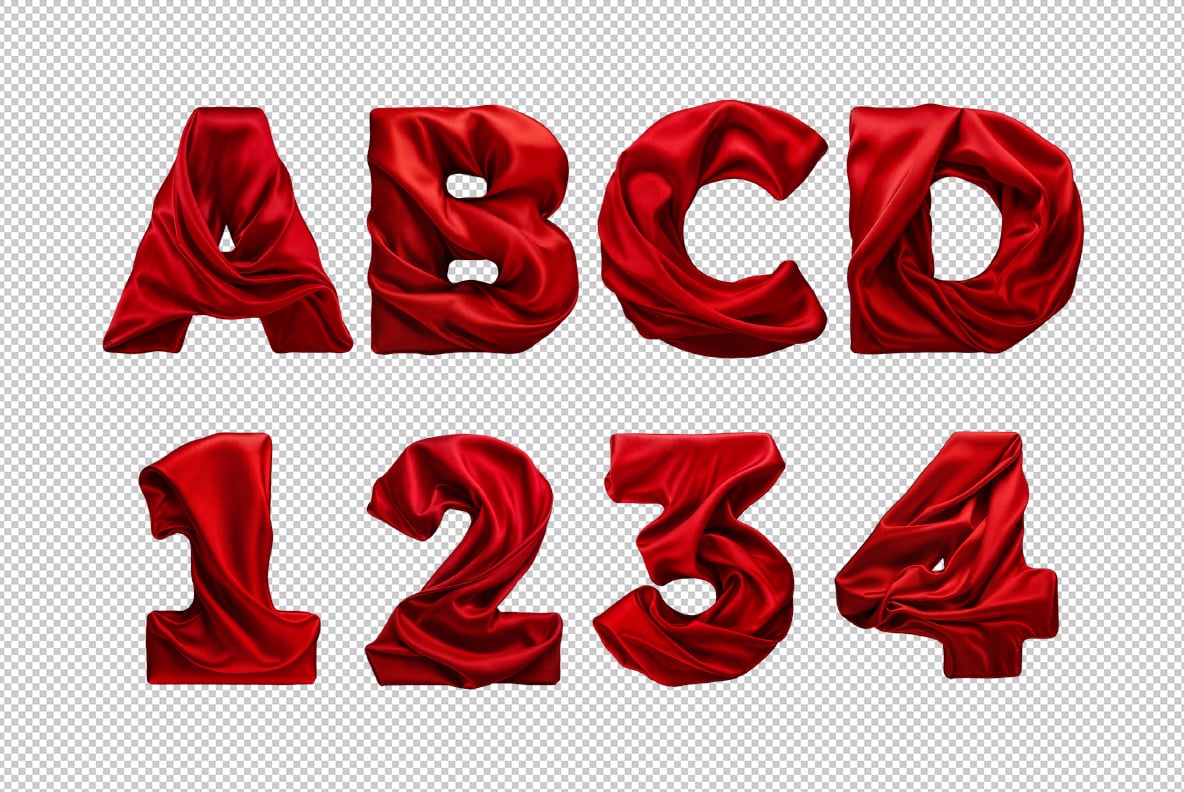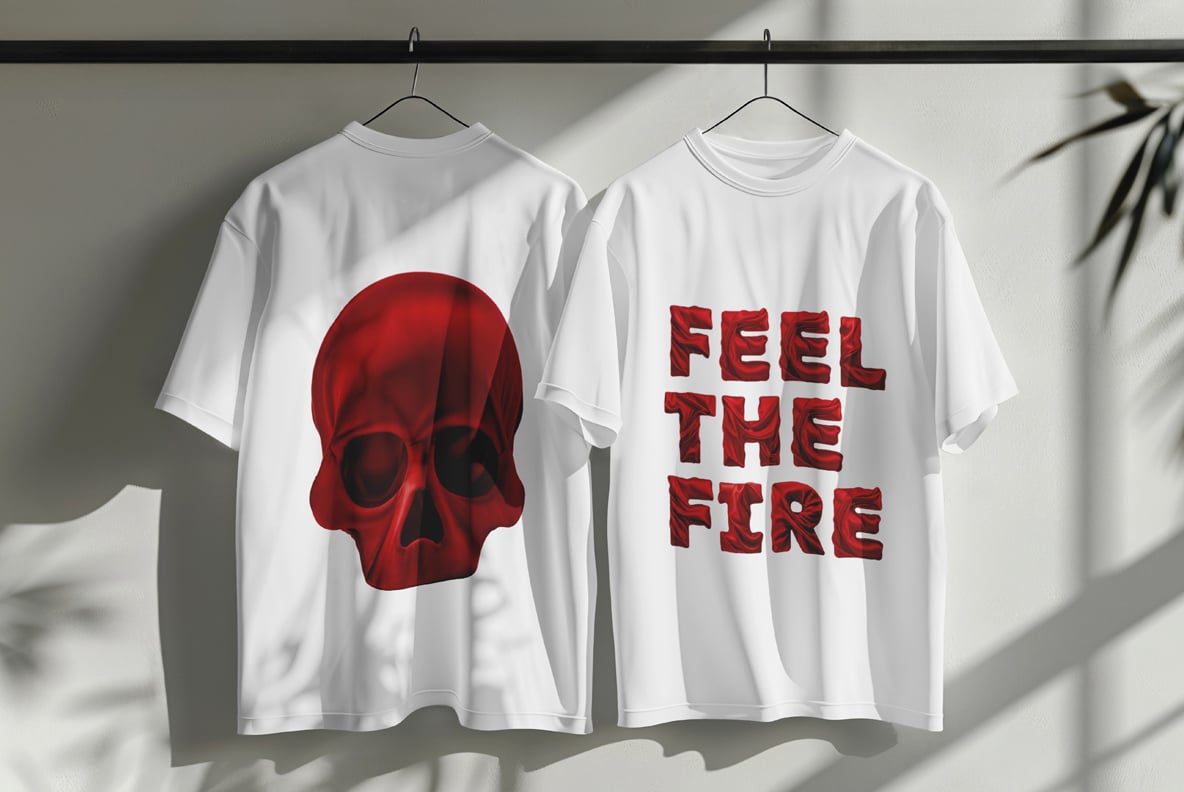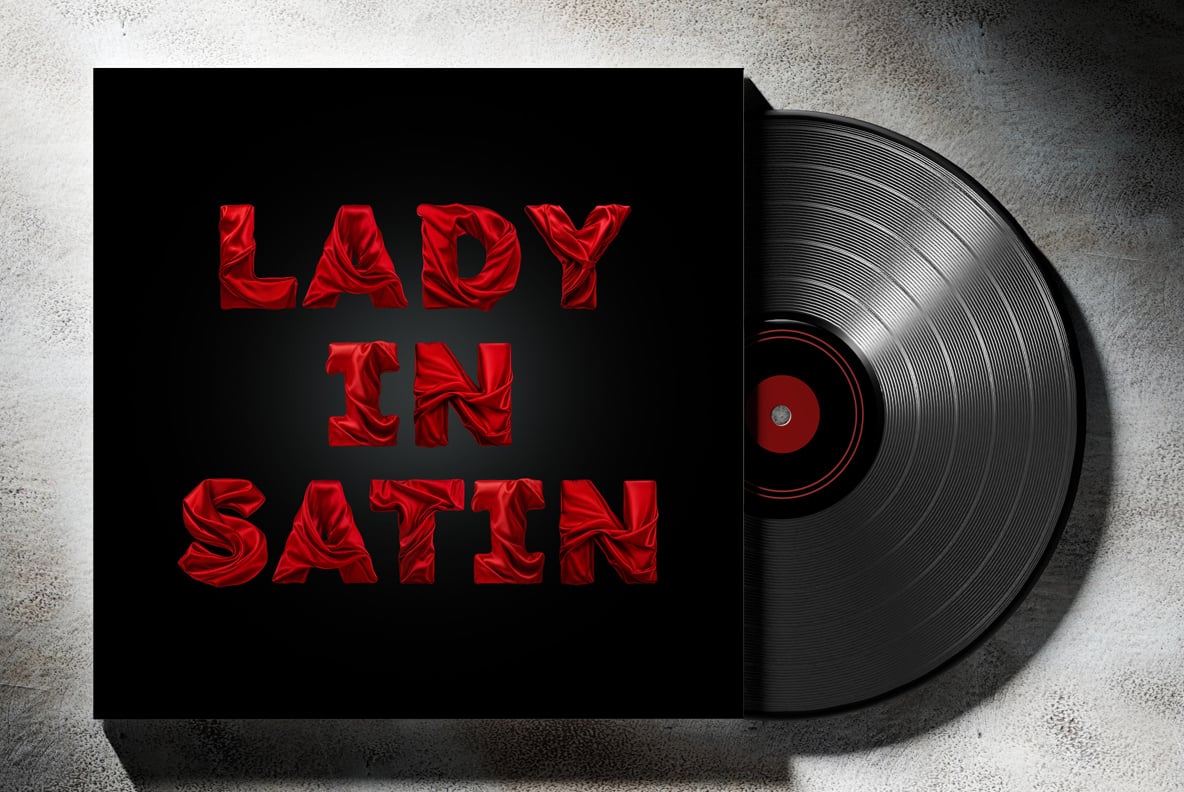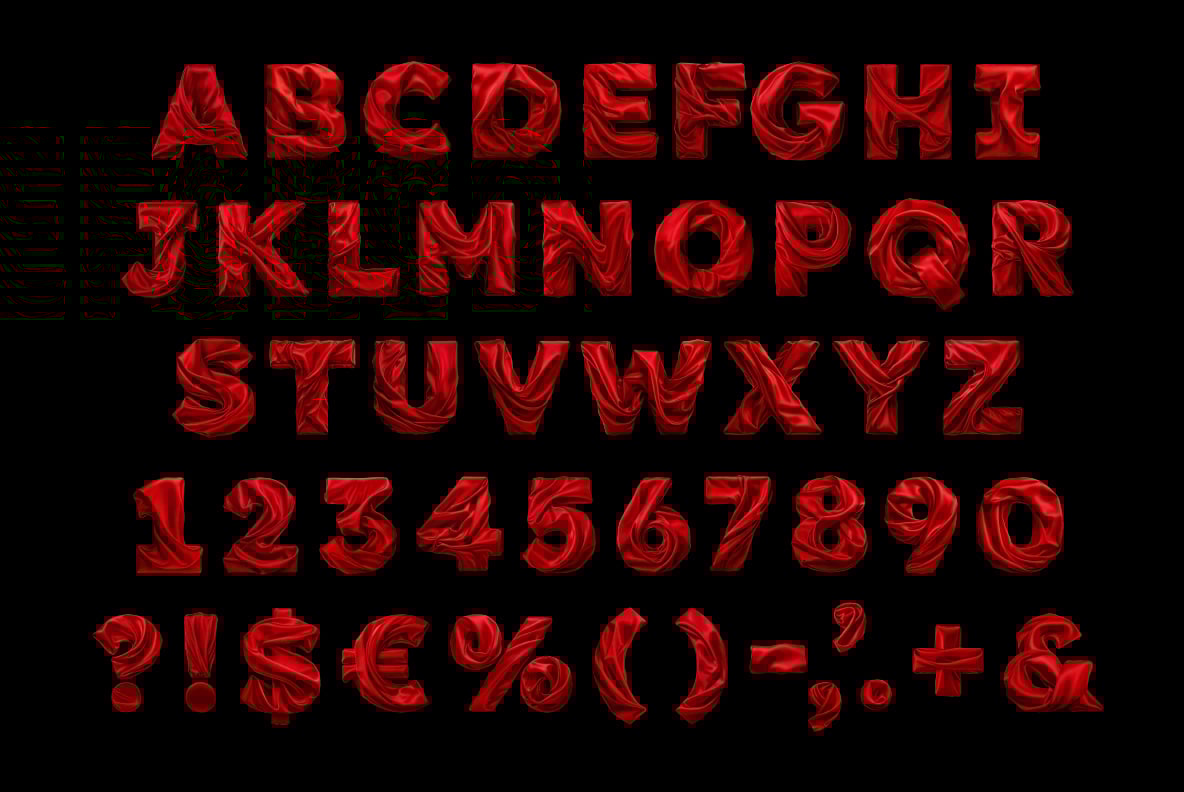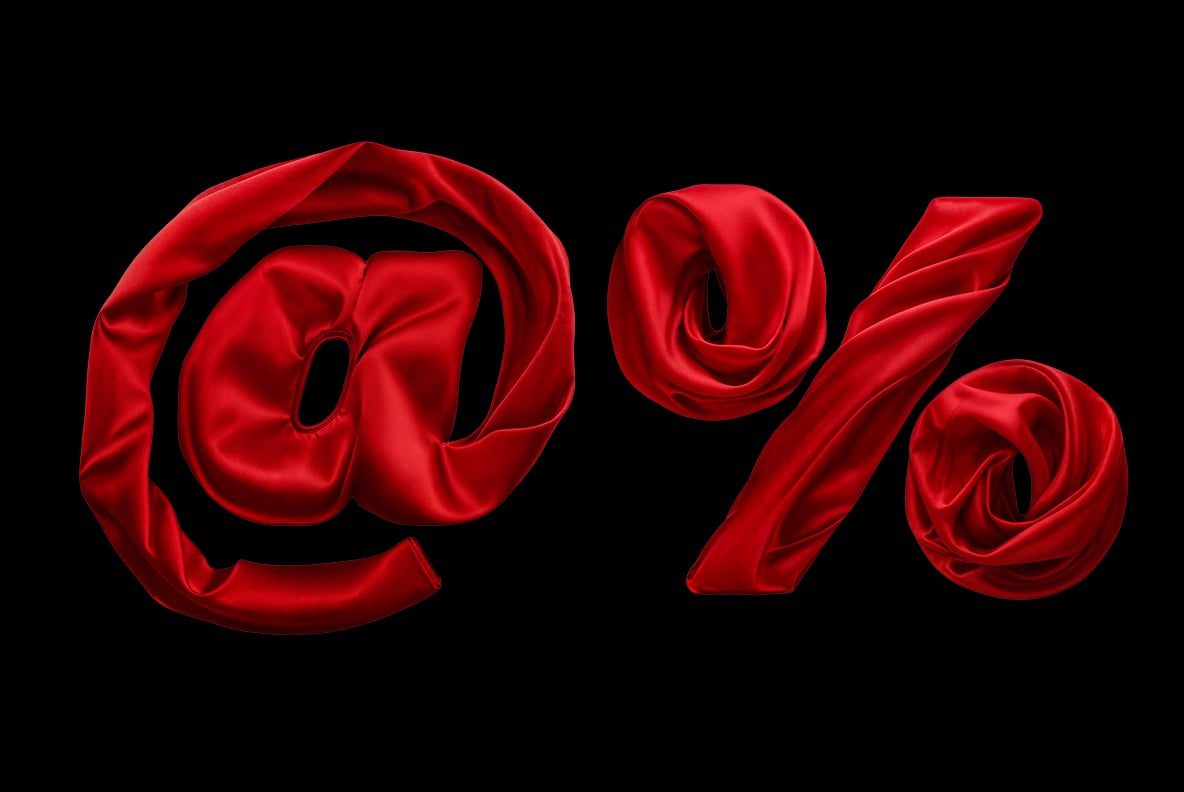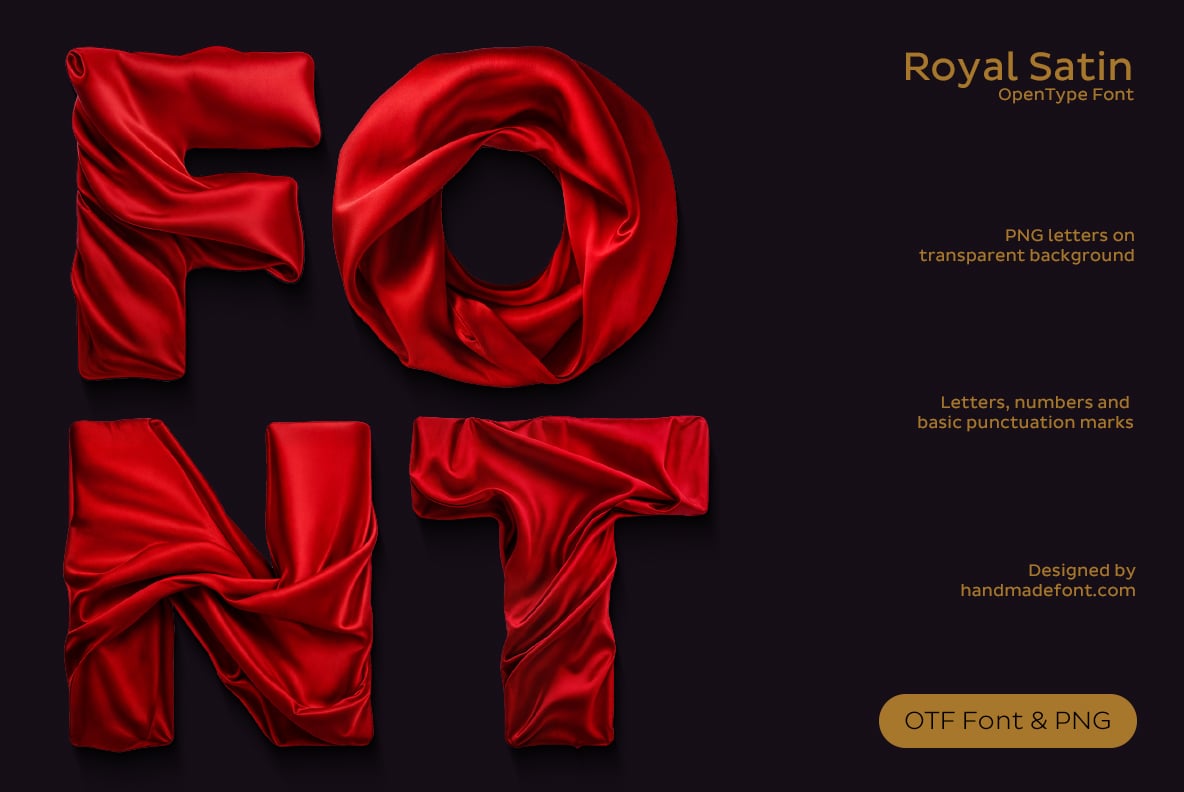
Royal Satin Font
Royal Satin is a luxurious display font inspired by the opulence and elegance of rich satin fabric. Each letter is crafted to resemble folds of silky red cloth, creating a three-dimensional, tactile appearance that radiates sophistication and drama. The smooth, glossy texture and deep crimson hue evoke a sense of royalty, fashion, and high-end design. Perfect for branding, editorial, packaging, or event invitations, Royal Satin adds a touch of glamour and theatrical flair. Its sculptural letterforms are ideal for use in upscale projects where visual impact and ornamental beauty are essential. This font makes a bold, regal statement.